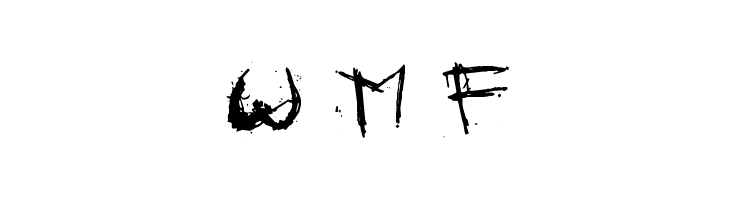
A bold, dripping font with a spooky, horror-themed style.
A playful, bone-themed decorative font perfect for spooky designs.
A bold, jagged Halloween-themed decorative font with spooky icons.
A spooky, elongated font with a dripping, horror-inspired design.
A spooky, hand-drawn font with jagged edges, perfect for eerie themes.
A decorative font with characters designed to look like bones, perfect for spooky themes.
A spooky, dripping font ideal for horror themes.
A decorative font with letters inside gravestone shapes, ideal for spooky themes.
A collection of horror-themed dingbats with eerie and spooky designs.
A spooky, jagged font with a haunted, eerie appearance.
A bold, playful font with a spooky, whimsical style.
A spooky, playful font with jagged, irregular letterforms.
A spooky, jagged font ideal for Halloween or eerie themes.
A spooky, hand-drawn font with elongated, irregular strokes and a whimsical style.
A decorative font made of skeletons, perfect for spooky themes.
A jagged, spiky font perfect for spooky and Halloween-themed designs.